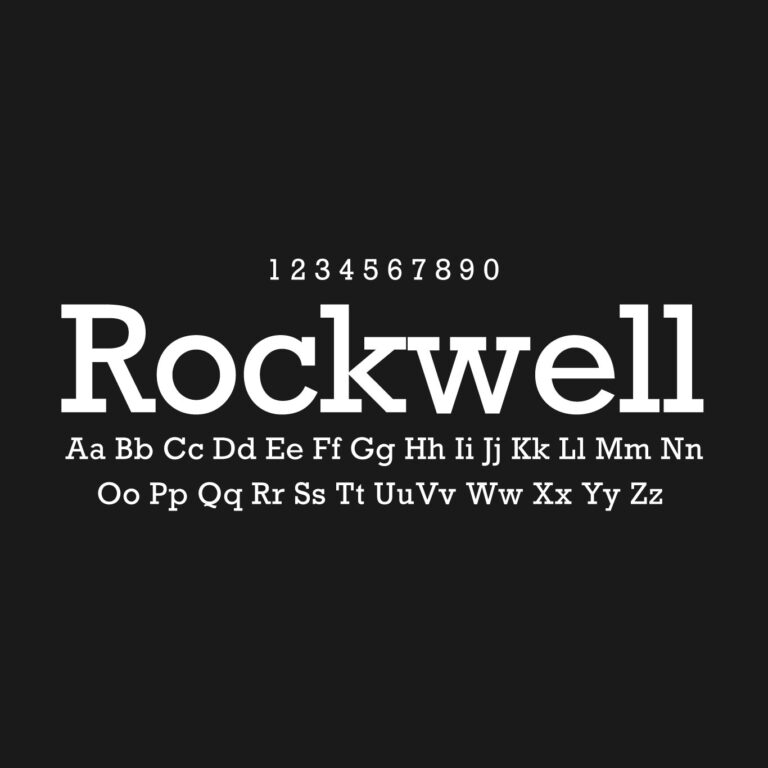
Rockwell is one of the best-known geometric slab serif typefaces. It was produced by Monotype in the 1930s and is connected to an earlier American slab serif design called Litho Antique, released by Inland Type Foundry in 1910.
The font stands out because of its solid rectangular serifs, circular forms and strong mechanical rhythm. It feels sturdy and direct, which is why Rockwell still works well for display typography, product labels, book covers, signage and advertising layouts.
Font Name: Rockwell
Font Type: Slab Serif
Category: Geometric Slab Serif / Egyptian Serif
Designer / Foundry: Monotype Design Studio
Associated Designer: Frank Hinman Pierpont
Original Influence: Litho Antique by Inland Type Foundry
Why Rockwell Became a Classic
Rockwell belongs to the slab serif tradition, also known as Egyptian type. These fonts became popular for display work because their heavy serifs create a strong visual block on posters, signs and printed headlines.
What makes Rockwell different is its geometry. The capital “O” is close to a perfect circle, and many letters feel built rather than written. That gives the family a strong architectural look.
At the same time, Rockwell is not as rough as many old wood-type slab serifs. Its forms are more controlled, which makes it useful for both vintage-style layouts and cleaner modern design work.
Rockwell vs Rockwell Nova
Rockwell and Rockwell Nova are closely related, but they are not the same package. Rockwell is the classic family most users recognize from older font menus and Microsoft Office environments.
Rockwell Nova is a later redesign with a broader style range and expanded language support. If you need the familiar classic look, use Rockwell. If you need a more updated family for longer text or modern document systems, Rockwell Nova may be a better option.